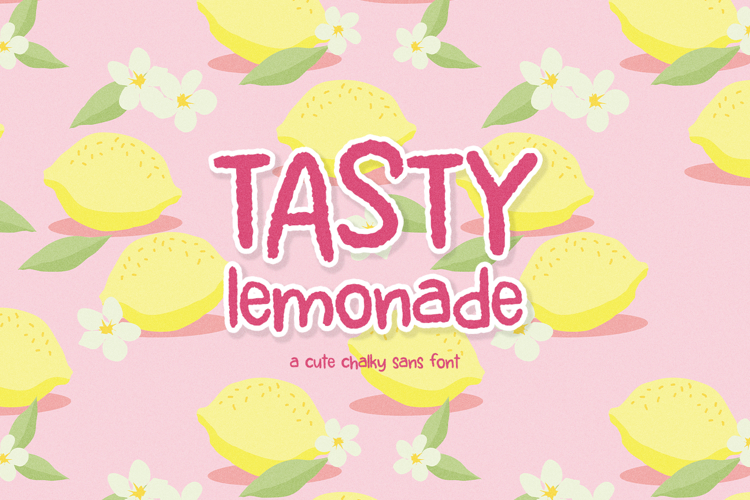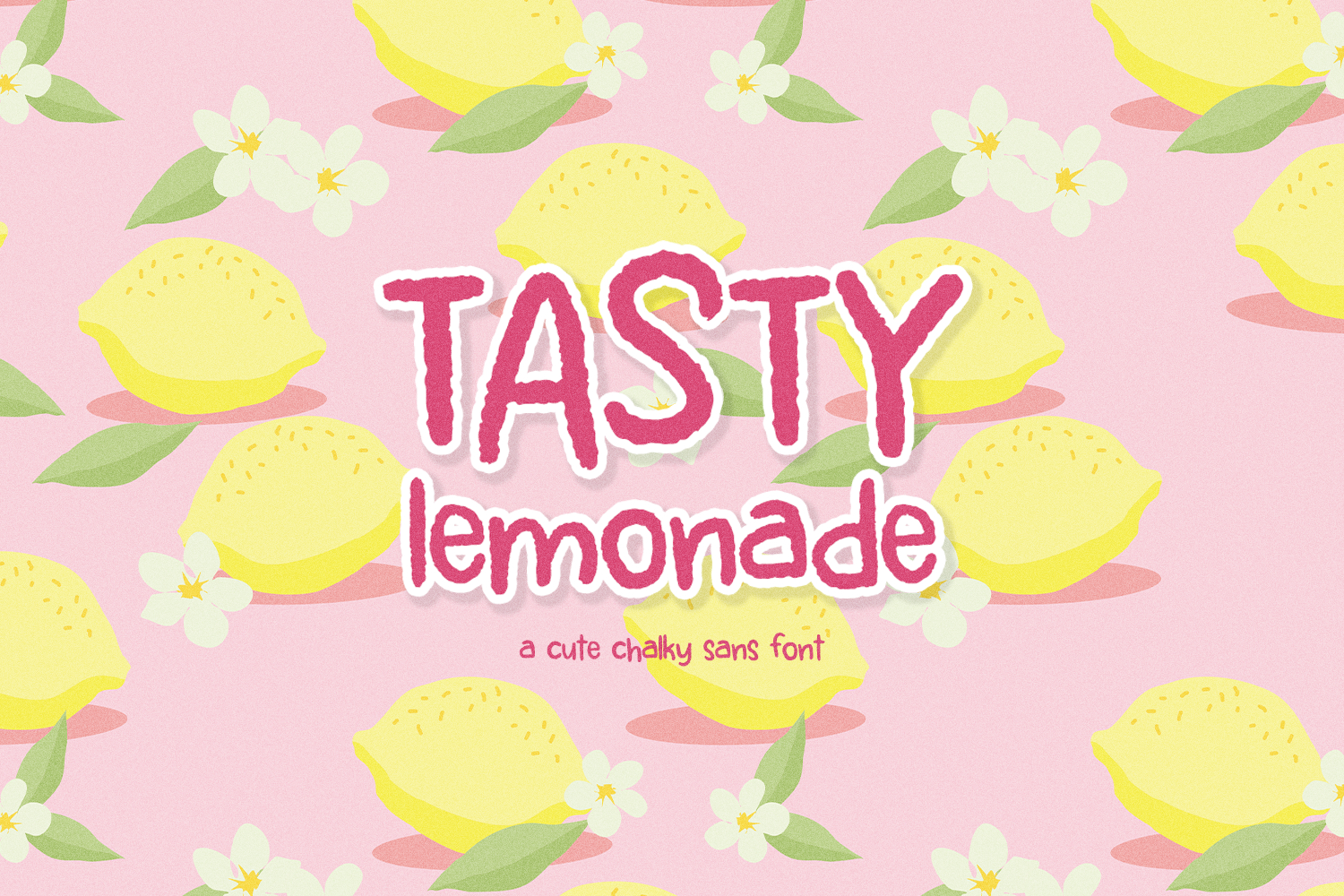
Tasty Lemonade Sans is a cute sans font with a chalk-like texture. This font is a good fit for logos & branding, greeting cards, painted banners, digital planners, note-taking apps, & Canva. Because Tasty Lemonade is textured, it may not be the best fit for vinyl cutting projects - this font is best for print or digital applications.